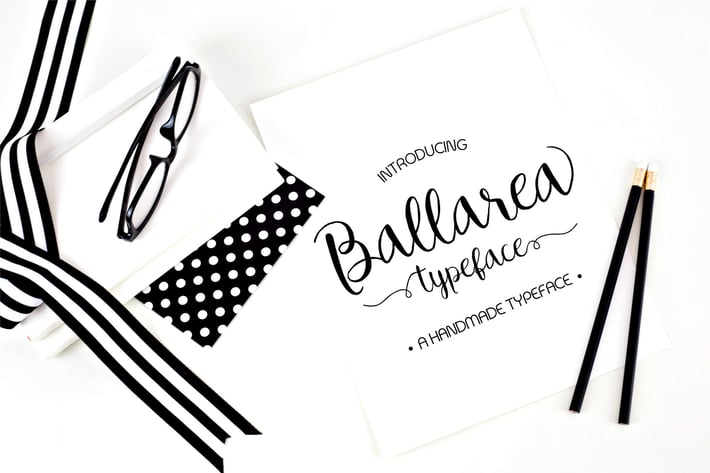
Ballarea Typeface
Ballarea Typeface was made handwritten using a calligraphy brush,was made deliberate rough shape this font look very natural.
Ballarea Typeface is very suitable for a logo design,wedding card logo, clothing brand logo and much more. Making it easier for you in fine-tuning and perfecting the design you are working on.